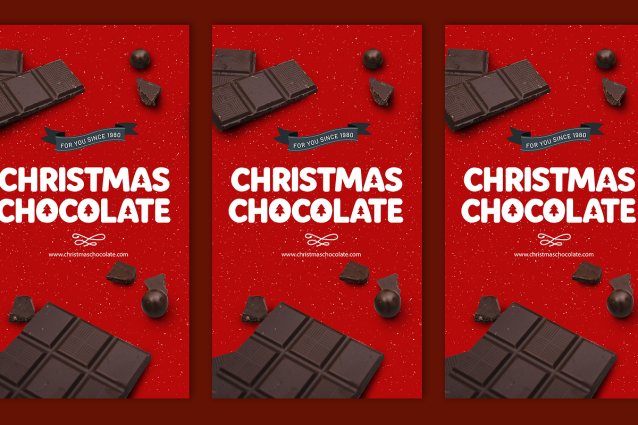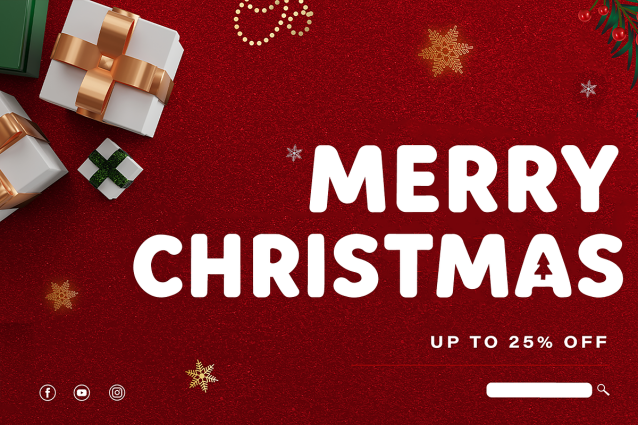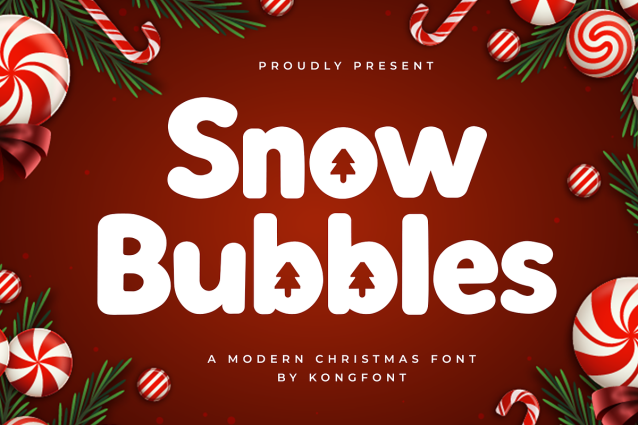
Snow Bubbles Display Font
Snow Bubbles Display Font a modern Christmas font crafted to bring joyful winter magic to your festive projects. Featuring rounded, bubbly letterforms adorned with subtle snowy accents, this typeface captures the warmth and playfulness of the holiday season in a fun and contemporary style.